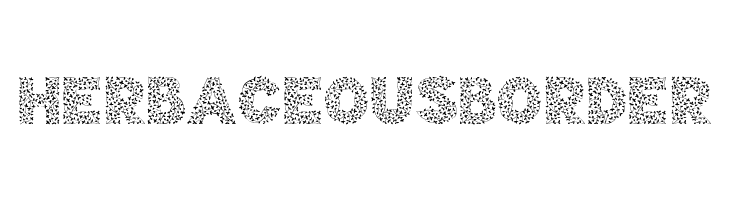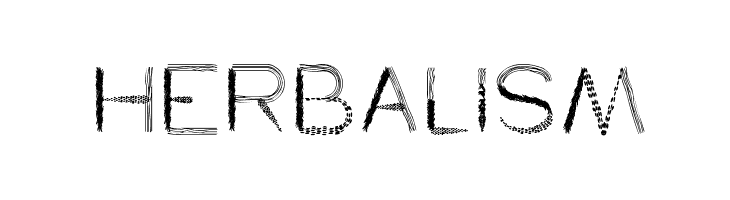
A decorative font filled with leaf-like patterns, offering a playful and organic style.
A modern, sans-serif font with a clean, condensed style and medium contrast.
A playful, handwritten font with bold, dynamic characters.
A textured, artistic font with intricate line and dot patterns.
A decorative font with intricate, nature-inspired patterns and a unique organic style.
An artistic and decorative font with intricate, swirling letterforms.
A casual, handwritten font with free-flowing strokes and uneven spacing.
A bold, modern typeface with clean lines and excellent legibility.